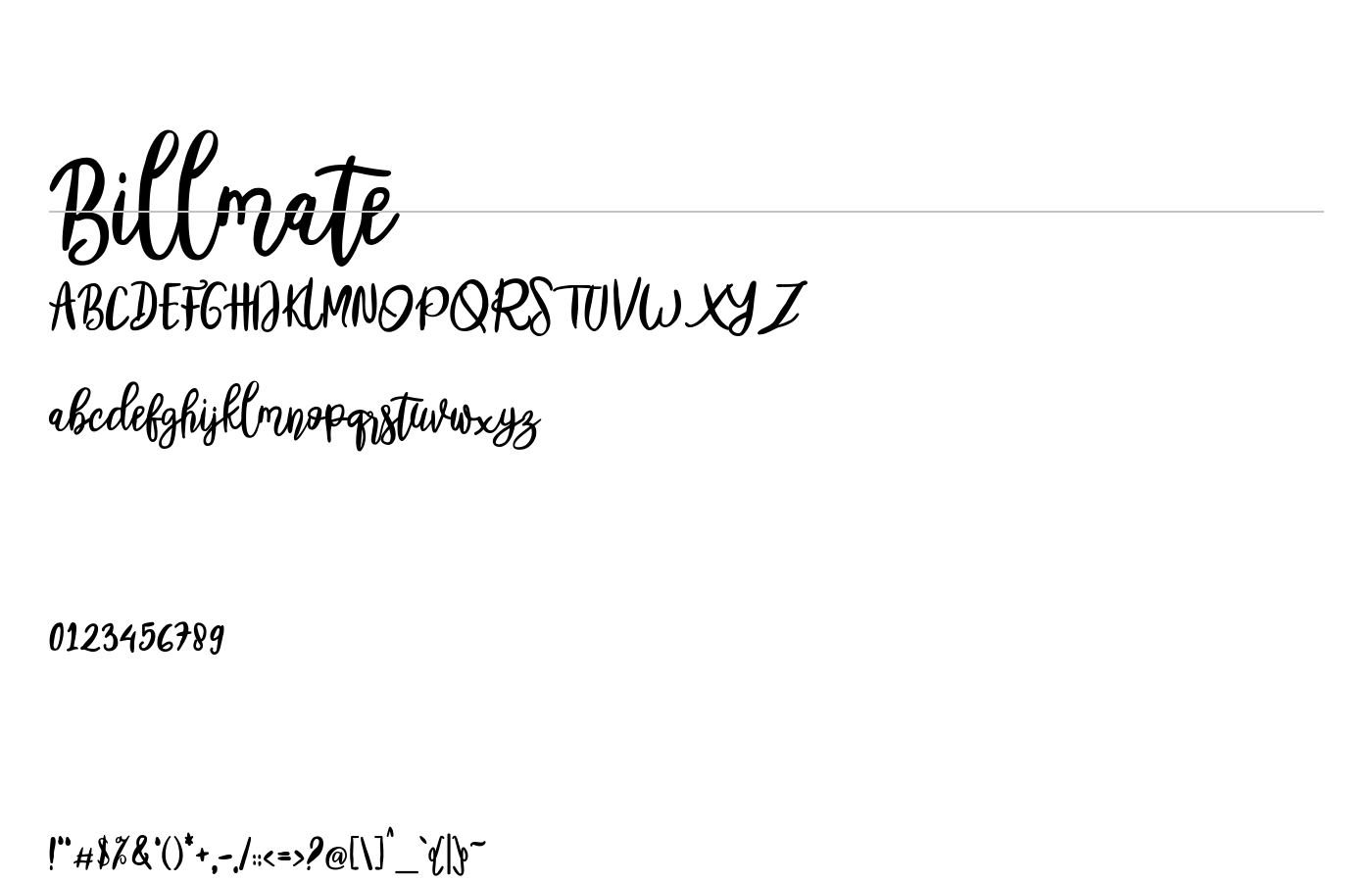
Billmate is a lively, handwritten script font with a casual and friendly vibe. Its smooth, flowing strokes and slightly playful letterforms make it perfect for creative projects, greeting cards, or branding that wants to feel personal and approachable. This font works well in headlines, logos, and designs that seek a warm, informal touch.
Billmate Font